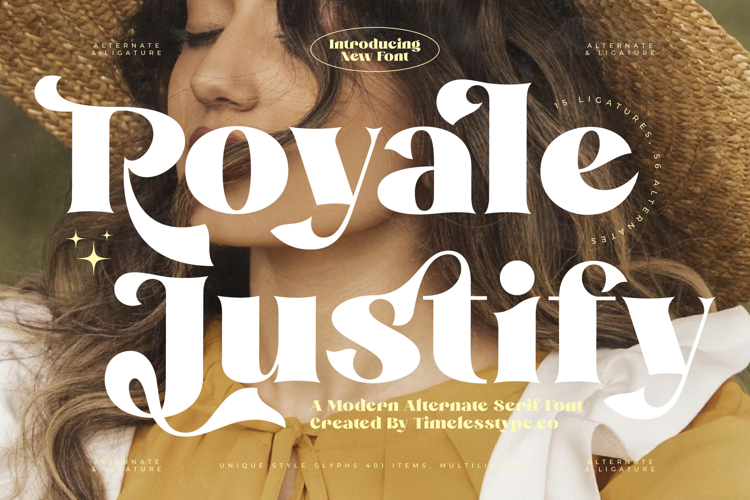
Royale Justify - Modern Alternate Serif Font
The Royale Justify Typeface is a modern alternate serif font with an elegant, artistic style and strong decorative character. Featuring 15 ligatures and 56 stylistic alternates, this font delivers expressive, flexible typography with rich visual variety. Its bold letterforms with dramatic curved ornaments evoke a luxurious yet contemporary feel, making it ideal for design projects that emphasize visual beauty, premium appeal, and editorial sophistication.
This typeface is highly effective in editorial design, particularly for fashion magazines, lifestyle articles, and art book covers. The variety of ligatures and alternates allows designers to create layouts that feel dynamic, unique, and visually engaging.
In branding and packaging, Royale Justify is an excellent choice for high-end fashion, luxury cosmetics, perfumes, artisan beverages, and exclusive lifestyle brands. Its refined aesthetic ensures an iconic, memorable, and prestigious visual identity.
For entertainment and promotional design, this font works beautifully on movie posters, album covers, art festival branding, and cultural event promotions. Its elegant character enhances visual storytelling with a sophisticated theatrical aura.
In the realm of digital design, Royale Justify performs flawlessly across social media content, website branding, digital ads, and motion graphics, ensuring typography remains stylish and recognizable. With multilingual support, it is also highly relevant for global projects.
In short, Royale Justify Typeface is a modern serif display font designed to embody elegance, luxury, and artistic versatility. Perfect for editorial, branding, packaging, advertising, entertainment, and digital campaigns, this font transforms typography into a stylish, timeless, and captivating visual icon.